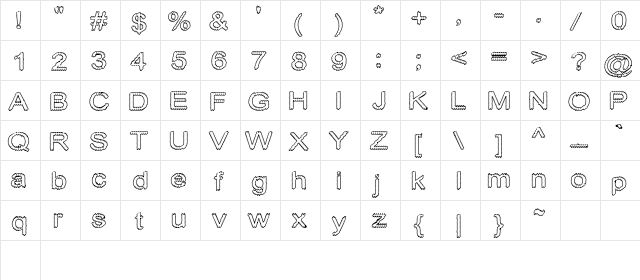
Cylonic Empty Regular
Design Context for Cylonic Empty Typeface
Cylonic Empty is a composed and adaptable typeface that performs quietly and consistently across a wide range of design contexts.